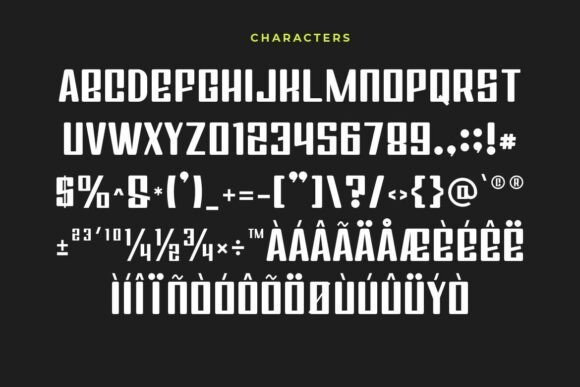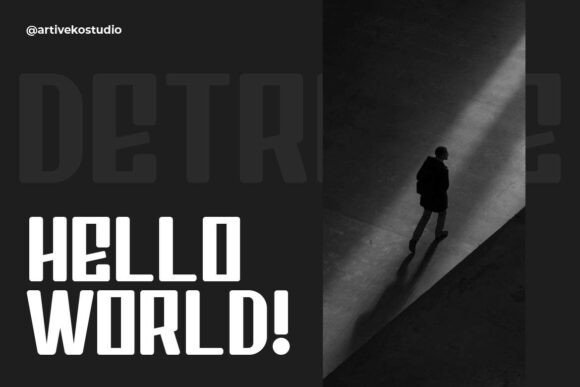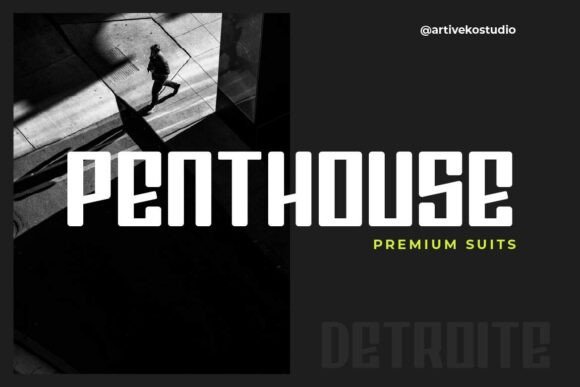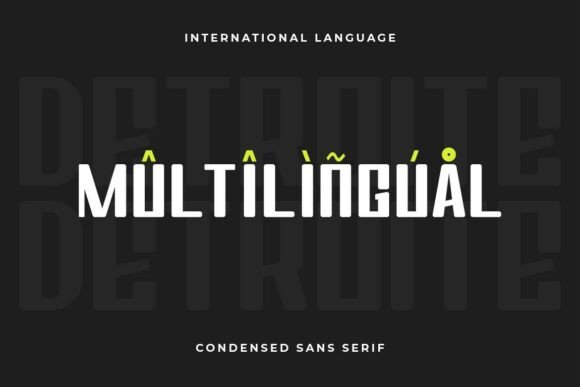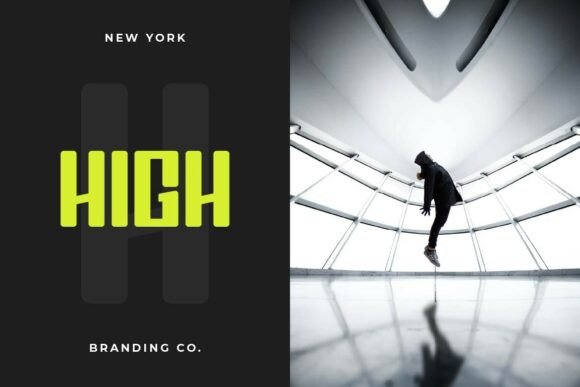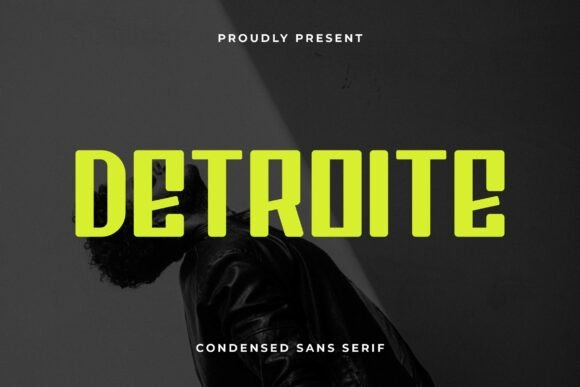
Introducing Detroite Font: The Ultimate Display Font for Bold Statements
In the world of typography, fonts play a crucial role in conveying messages, evoking emotions, and creating lasting impressions. For designers and crafters, finding the right font can make all the difference in their creative projects. If you’re looking for a font that exudes confidence, strength, and modernity, look no further than Detroite Font.
What is Detroite Font?
Detroite is a powerful sans display font designed to make a statement. With its thick strokes, confident structure, and clean modern lines, Detroite is perfect for headlines, logos, sports branding, posters, apparel, and packaging that demand strength and impact. This font is not just a means of communication; it’s a declaration of boldness, a reflection of confidence, and a symbol of modernity.
Key Features of Detroite Font
- Thick Strokes: Detroite’s thick strokes give it a robust and strong appearance, making it perfect for headlines, titles, and logos that need to grab attention.
- Confident Structure: The font’s confident structure is evident in its clean lines, sharp edges, and balanced proportions, giving it a sense of stability and reliability.
- Clean Modern Lines: Detroite’s clean modern lines ensure that the font remains legible and easy to read, even at large sizes, making it ideal for posters, billboards, and digital displays.
Use Cases for Detroite Font
Detroite’s versatility makes it suitable for a wide range of applications, including:
- Headlines and Titles: Use Detroite to create bold, attention-grabbing headlines that set the tone for your content.
- Logos and Branding: Detroite is perfect for logos, sports branding, and packaging that require a strong, confident look.
- Posters and Flyers: Create eye-catching posters and flyers with Detroite’s bold, modern design.
- Apparel and Merchandise: Use Detroite to create striking apparel and merchandise that makes a statement.
Why Choose Detroite Font?
With so many fonts available, why choose Detroite? Here are a few reasons:
- Uniqueness: Detroite’s distinctive design sets it apart from other fonts, ensuring your project stands out from the crowd.
- Legibility: Despite its bold design, Detroite remains highly legible, even at small sizes.
- Versatility: Detroite’s flexibility makes it suitable for a wide range of applications, from digital displays to print materials.
Tips for Using Detroite Font
To get the most out of Detroite, follow these tips:
- Use it boldly: Detroite is designed to make a statement, so don’t be afraid to use it in bold, eye-catching ways.
- Experiment with colors: Detroite’s clean design makes it versatile enough to work with a wide range of colors and textures.
- Pair it wisely: Combine Detroite with complementary fonts to create visual interest and hierarchy.
Detroite Font is a powerful tool for designers and crafters looking to make a bold statement. With its thick strokes, confident structure, and clean modern lines, Detroite is perfect for headlines, logos, sports branding, posters, apparel, and packaging that demand strength and impact. Whether you’re a seasoned designer or just starting out, Detroite is an excellent addition to your typographic arsenal.